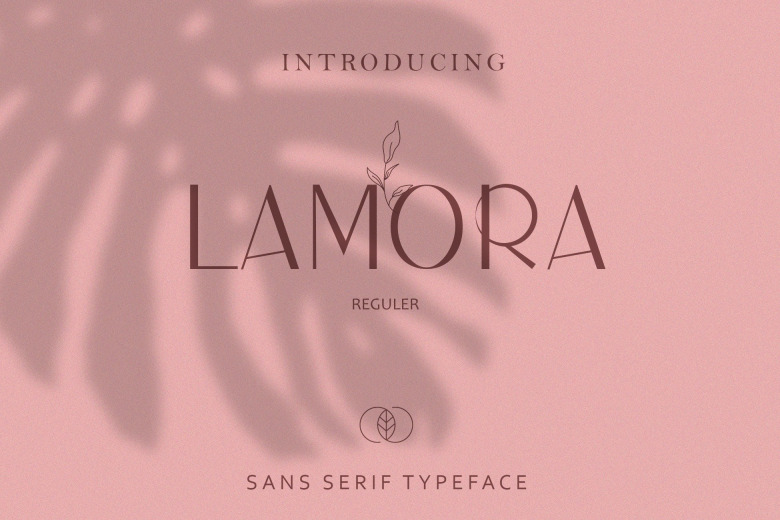
Lamora Font
Lamora is an elegant, thin lettered and delicate sans serif font. It will add a luxury spark to any design project that you wish to create! Add it confidently to your favorite creations and let yourself be amazed by the outcome generated.